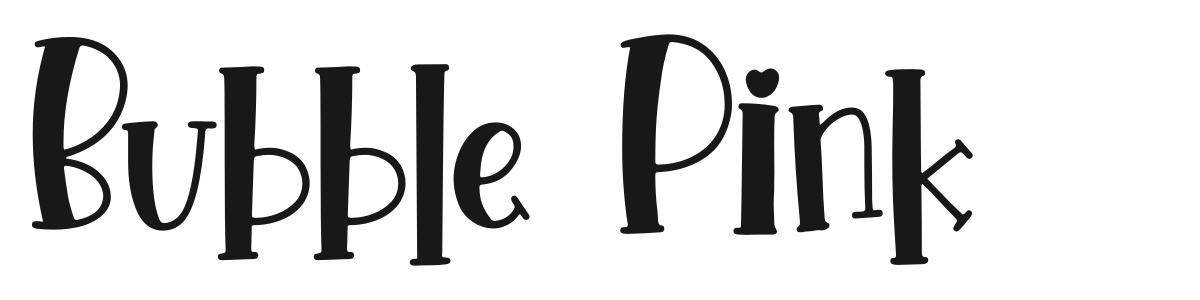
Bubble Pink
Bubble Pink is a whimsical display serif with a bouncing, unpredictable rhythm where each character plays by its own rules for height and proportion. Strong stroke contrast mixes chunky stems with hairline serifs, and tiny heart details tucked into the design add a sweet, handmade touch. It brings a lot of personality to short headlines, product packaging, and anything that wants to feel fun and a little offbeat.